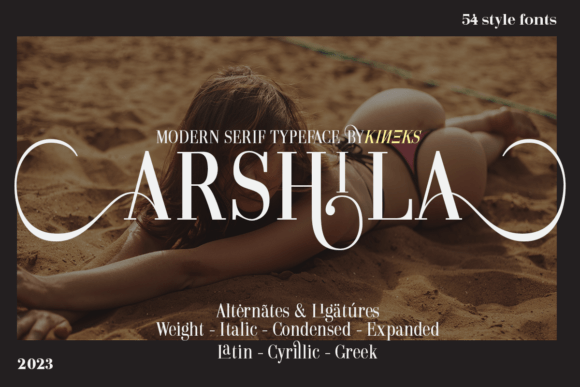
Introducing Arshila Font, the epitome of uniqueness and elegance in the world of serif fonts. Created by the talented kineks, this font is specifically designed for Greek letters, making it a must-have for anyone seeking to add a touch of sophistication and creativity to their design projects.
Arshila Font is not your ordinary serif font. It exudes a sense of individuality and captures attention with its distinctive and intricate letterforms. Each character is meticulously crafted, ensuring that every word you create becomes a work of art in itself. Whether you're working on editorial designs, logos, or any other project, Arshila Font will undoubtedly make your work stand out from the crowd.
Imagine the impact this font will have on your designs. With its captivating style, Arshila Font injects a sense of elegance and class into every piece of work. It effortlessly transforms a simple design into a masterpiece, leaving a lasting impression on anyone who lays eyes on it. Your audience won't be able to resist the allure of this exceptional font.
But Arshila Font is more than just a visually stunning typeface. It is a tool that empowers you to express your creativity and make a statement. Its versatility allows it to adapt to any project, whether you're designing a fashion magazine, a wedding invitation, or a high-end branding campaign. With Arshila Font, your possibilities are endless, and your creativity knows no bounds.
By downloading Arshila Font, you're not only investing in a remarkable design asset, but you're also unlocking a world of endless possibilities. It's the perfect companion for designers, artists, and creatives who strive to push boundaries and captivate their audience. Let this font be your secret weapon in creating extraordinary designs that leave a lasting impression.
Don't settle for ordinary fonts when you can have the extraordinary. Arshila Font is the missing piece in your design toolkit that will take your projects to new heights. It's time to elevate your designs and leave an indelible mark on the world. Download Arshila Font today and embark on a journey of creativity and distinction.